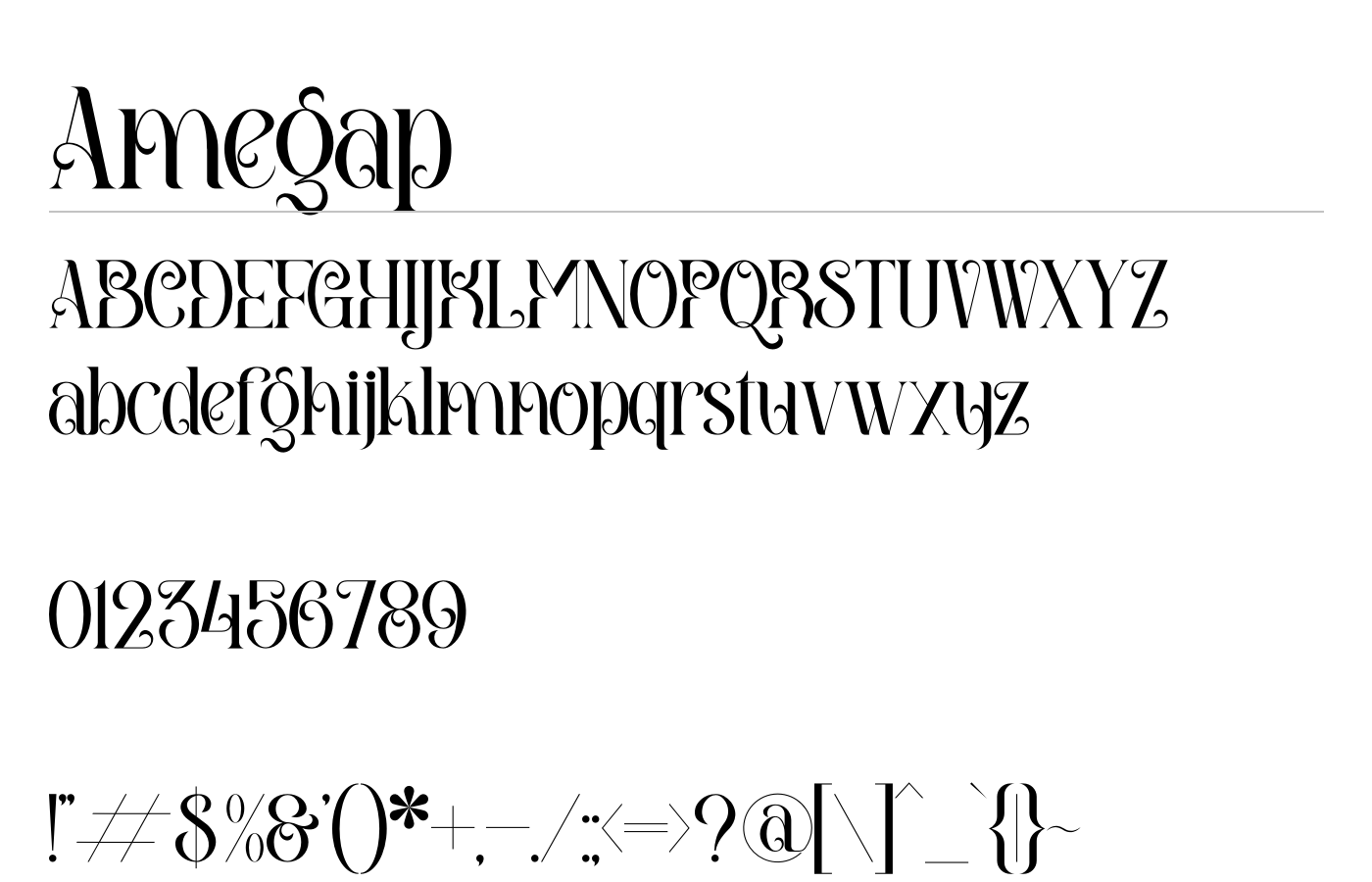
Amegap is a distinctive serif font with a modern twist, characterized by its high contrast strokes and elegant, narrow letterforms. Its artistic swirls and flourishes give it a sophisticated, almost whimsical personality, making it ideal for luxury branding, fashion headlines, and editorial use where style and flair are key. This font stands out best in display settings where its unique details can be fully appreciated.
Amegap Font
About Amegap Font